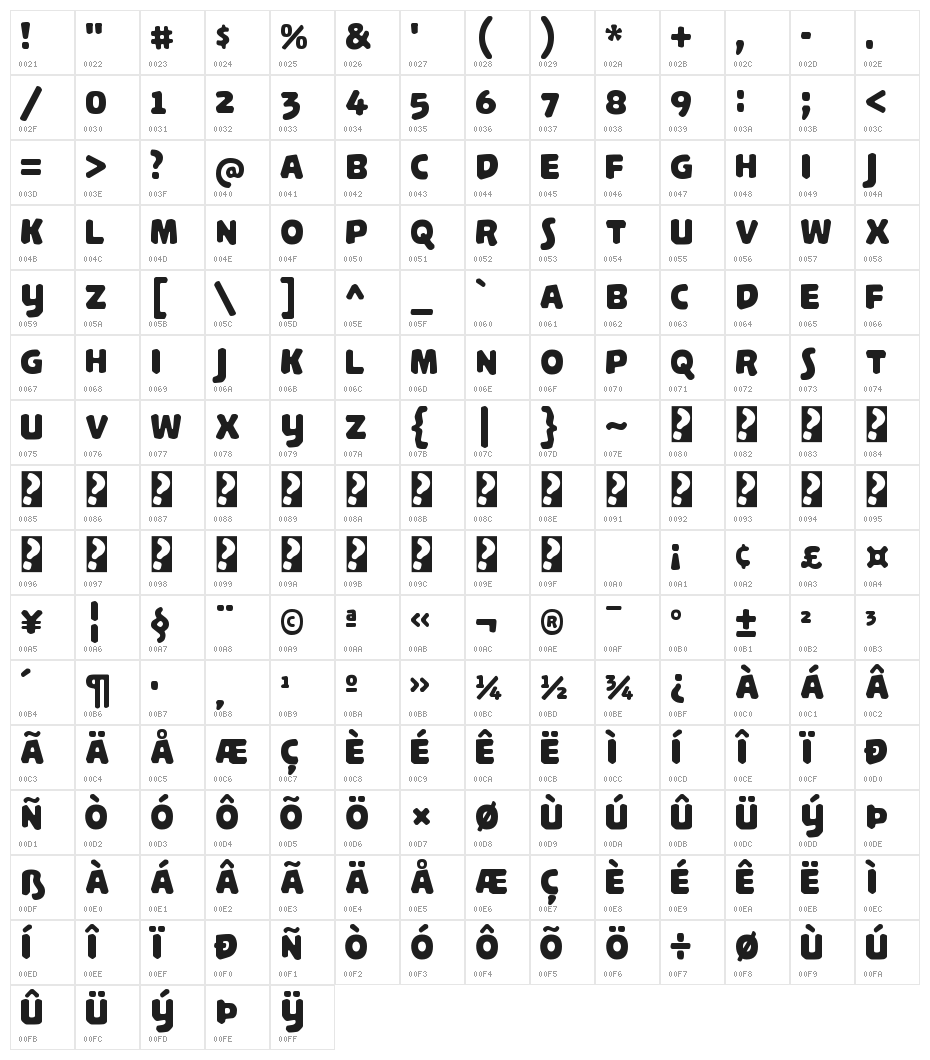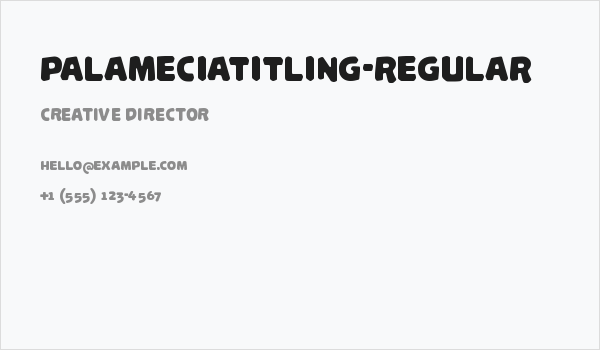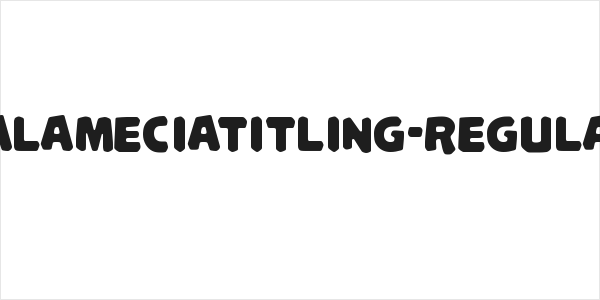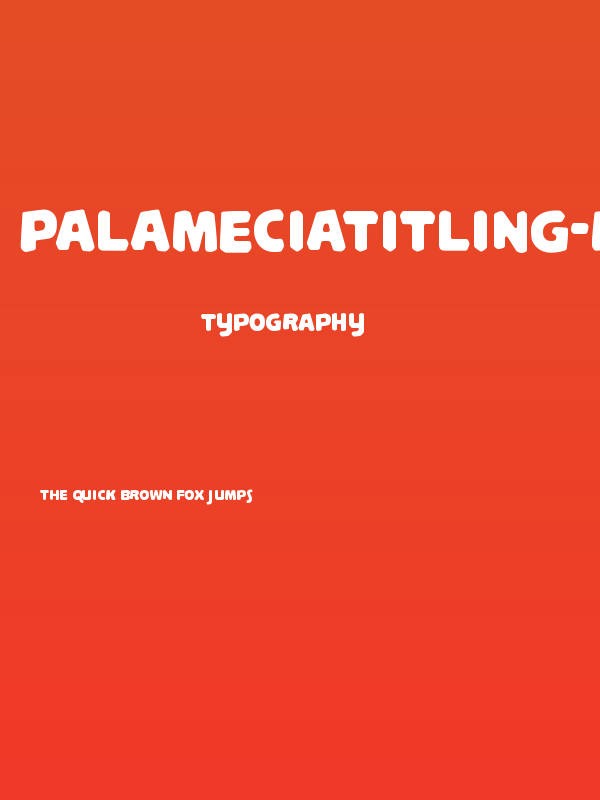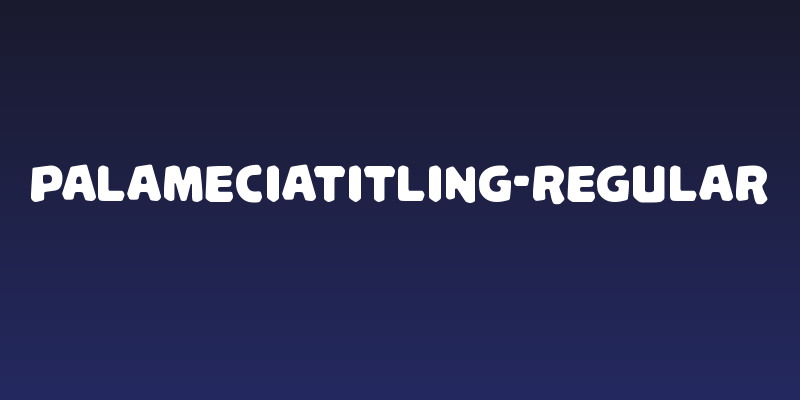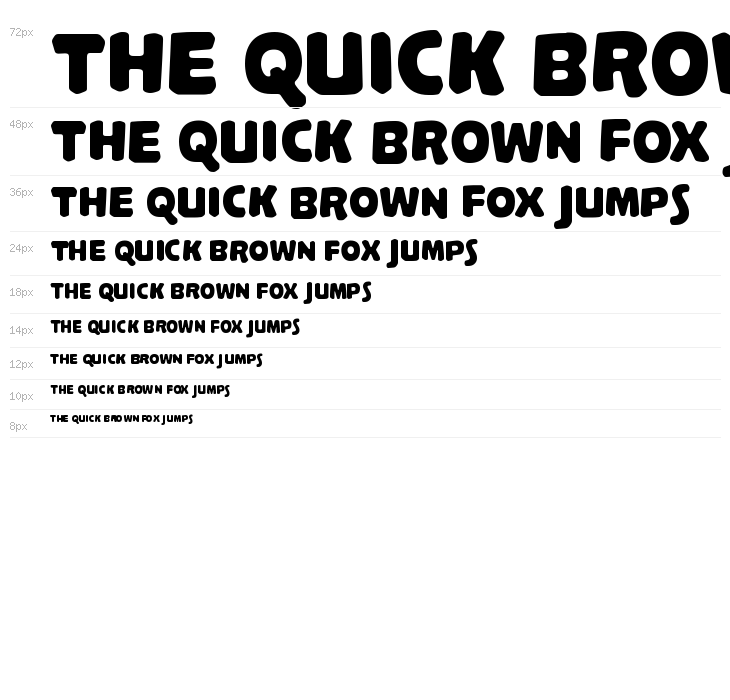
PalameciaTitling-Regular Font
PalameciaTitling-Regular Description
This font features a bold and playful design with rounded edges and a slightly condensed appearance. The characters are thick and uniform, creating a strong visual impact. The uppercase and lowercase letters maintain a consistent style, with a slight emphasis on curves and smooth transitions. The numbers and special characters follow the same design principles, ensuring a cohesive look across all glyphs. This font is ideal for projects that require a friendly and approachable aesthetic, combining modern elements with a touch of whimsy.
| Overall Style | Playful, Modern |
| Proposed Projects | Great for children's books, playful branding, posters, and social media graphics. |